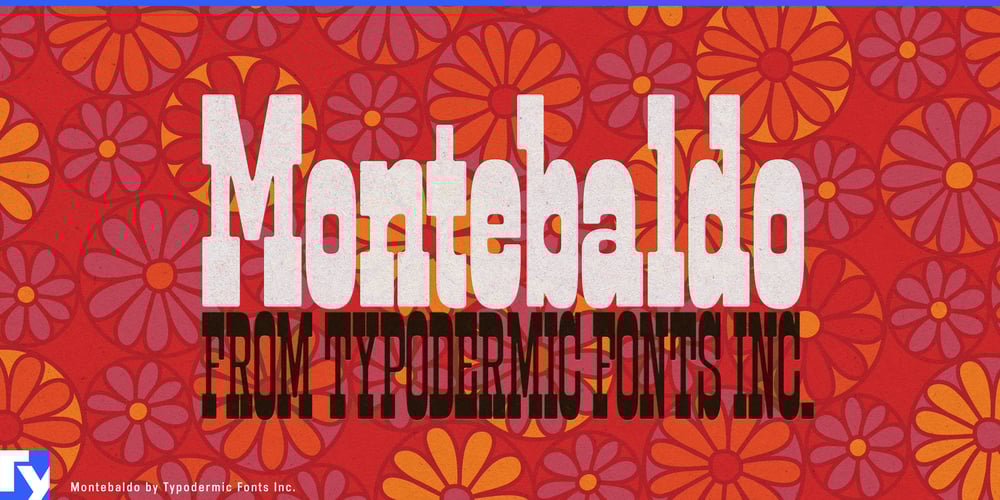
Montebaldo
Montebaldo font
Montebaldo Font Family was designed by Ray Larabie and published by Typodermic. Montebaldo contains 8 styles and family package options. Montebaldo—a typeface that whispers tales of celluloid dreams and silver screen glamour. This inverse slab serif from Typodermic Fonts doesn’t just nod to the 1960s; it embodies the era’s cinematic essence, frame by captivating frame.Imagine the possibilities across Montebaldo’s spectrum of eight styles. From the commanding presence of Black with its bold, exaggerated slabs, to the whisper-thin elegance of its ultra-compressed variant, each weight tells its own story. The typeface’s beefy serifs and ultra-tight spacing echo the vintage charm of photo-typositors and dry transfer lettering, bringing an authentic analog feel to the digital realm. But Montebaldo isn’t content to merely reminisce. Its precisely softened corners ensure that whether you’re crafting attention-demanding headlines or zooming in for typographic close-ups, every letter stands ready for its moment in the spotlight. This versatility makes Montebaldo the director’s choice for titles that need to convey drama, style, and a touch of nostalgia all at once.In an age where global communication is key, Montebaldo speaks volumes in multiple languages. Its extensive character set covers a vast array of Latin-based European writing systems, ensuring your message resonates from Helsinki to Lisbon, from Reykjavik to Istanbul. This linguistic dexterity adds another layer to Montebaldo’s versatility, making it as much a global player as it is a timeless classic.Ready to give your designs the star treatment? Let Montebaldo take center stage in your next project. Whether you’re designing film titles, crafting retro-inspired posters, or seeking to infuse your branding with cinematic allure, Montebaldo is poised to deliver a performance that will leave your audience asking for an encore. Don’t just create—direct a typographic masterpiece with Montebaldo.